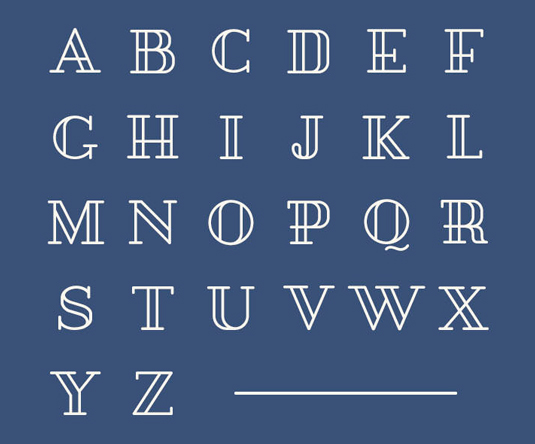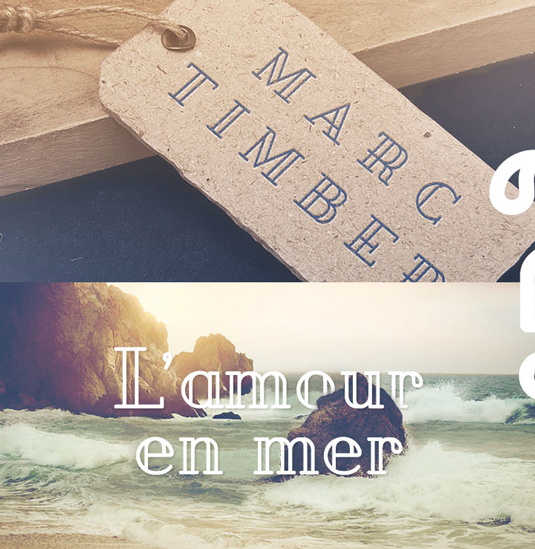
Font of the day: Pirou
Every day we showcase the best fonts on the web. Today it's Pirou by Quentin Grébeude, which is totally free to download.
Pirou by Quentin Grébeude
Today's typeface of choice Pirou was created by graphic designer Quentin Grébeude. "Pirou is an experimental outline typeface inspired by Didot," he comments on Behance. "The font contains more than 300 characters including uppercase, lowercase, numbers, symbols, ligatures and accents."